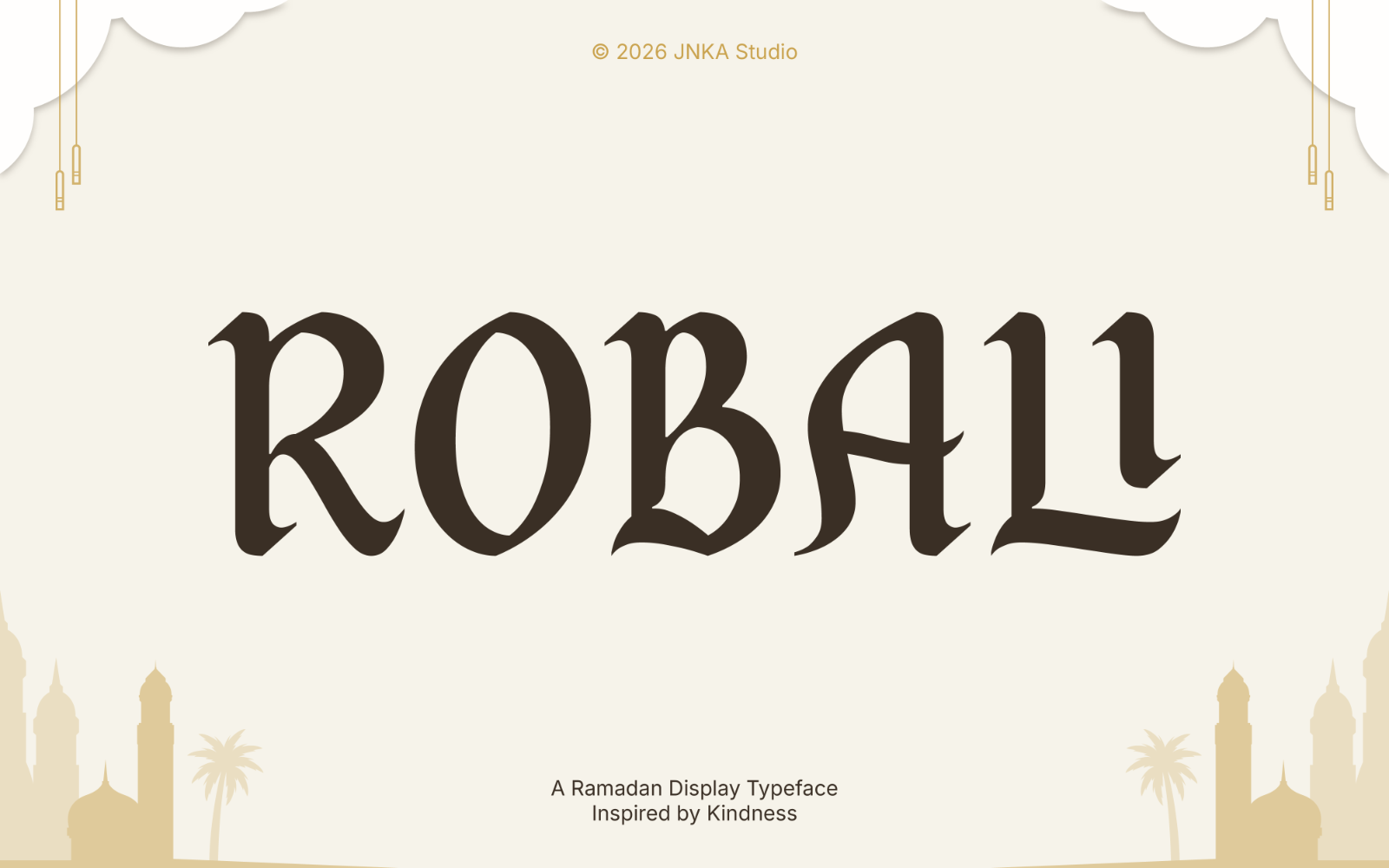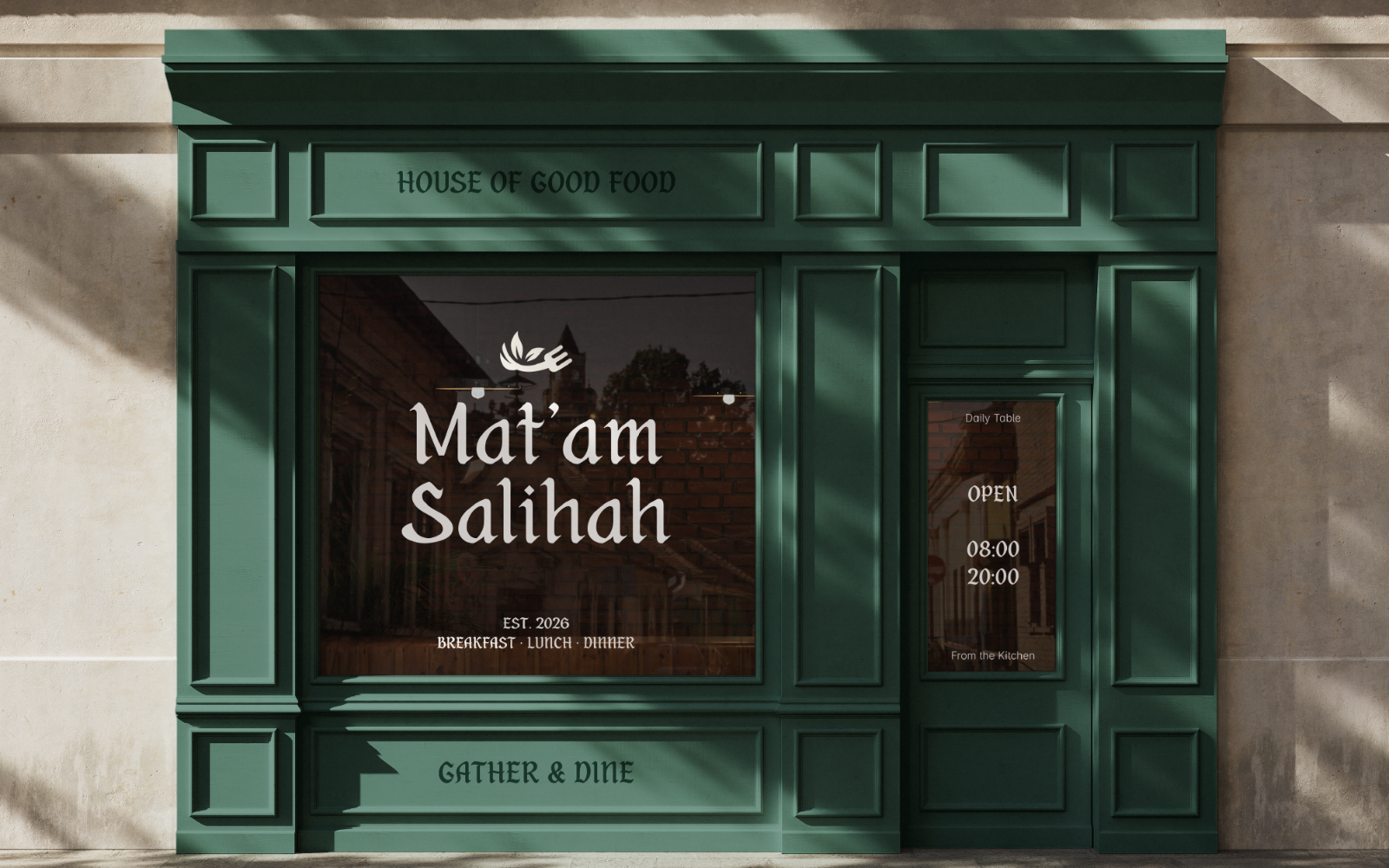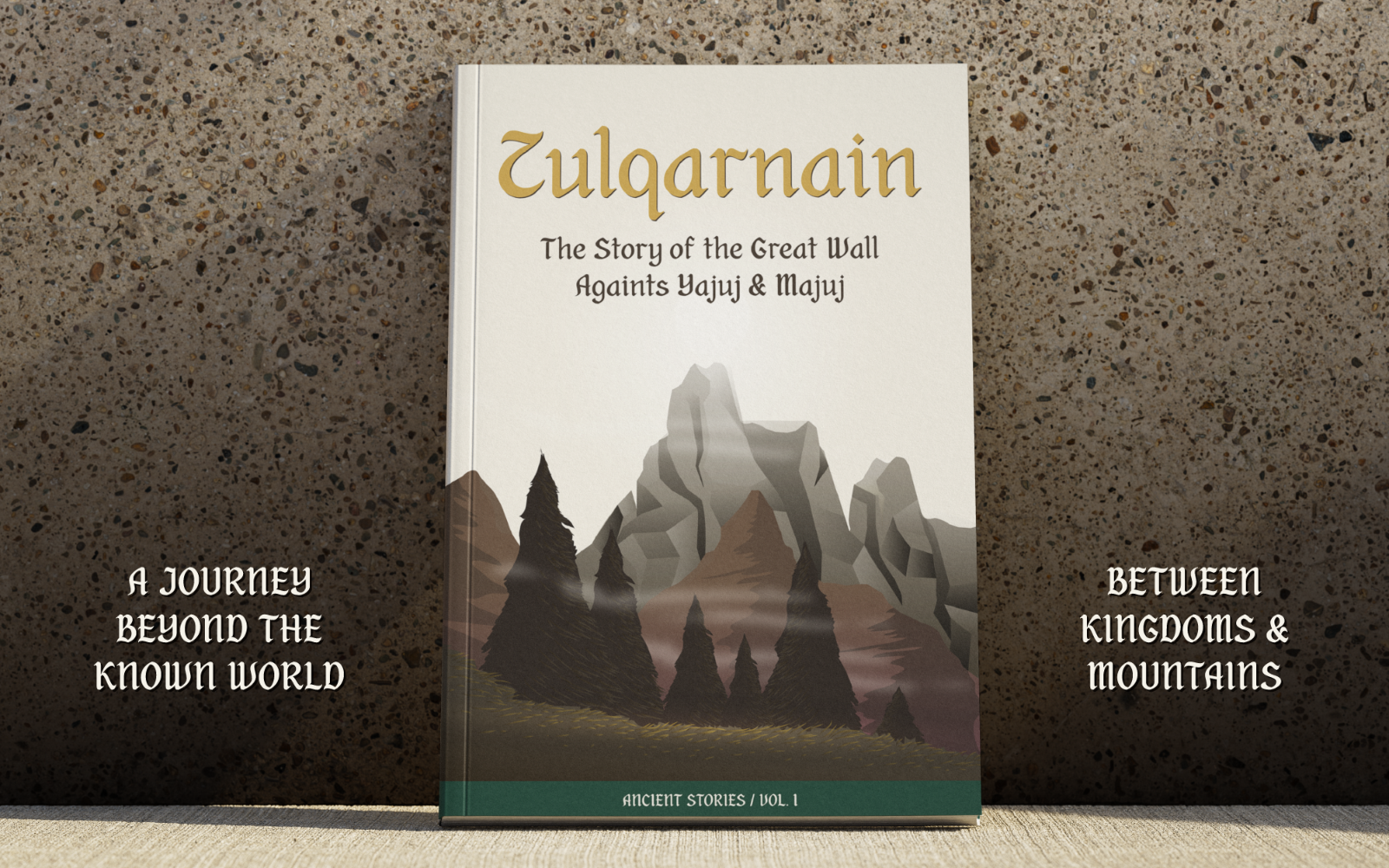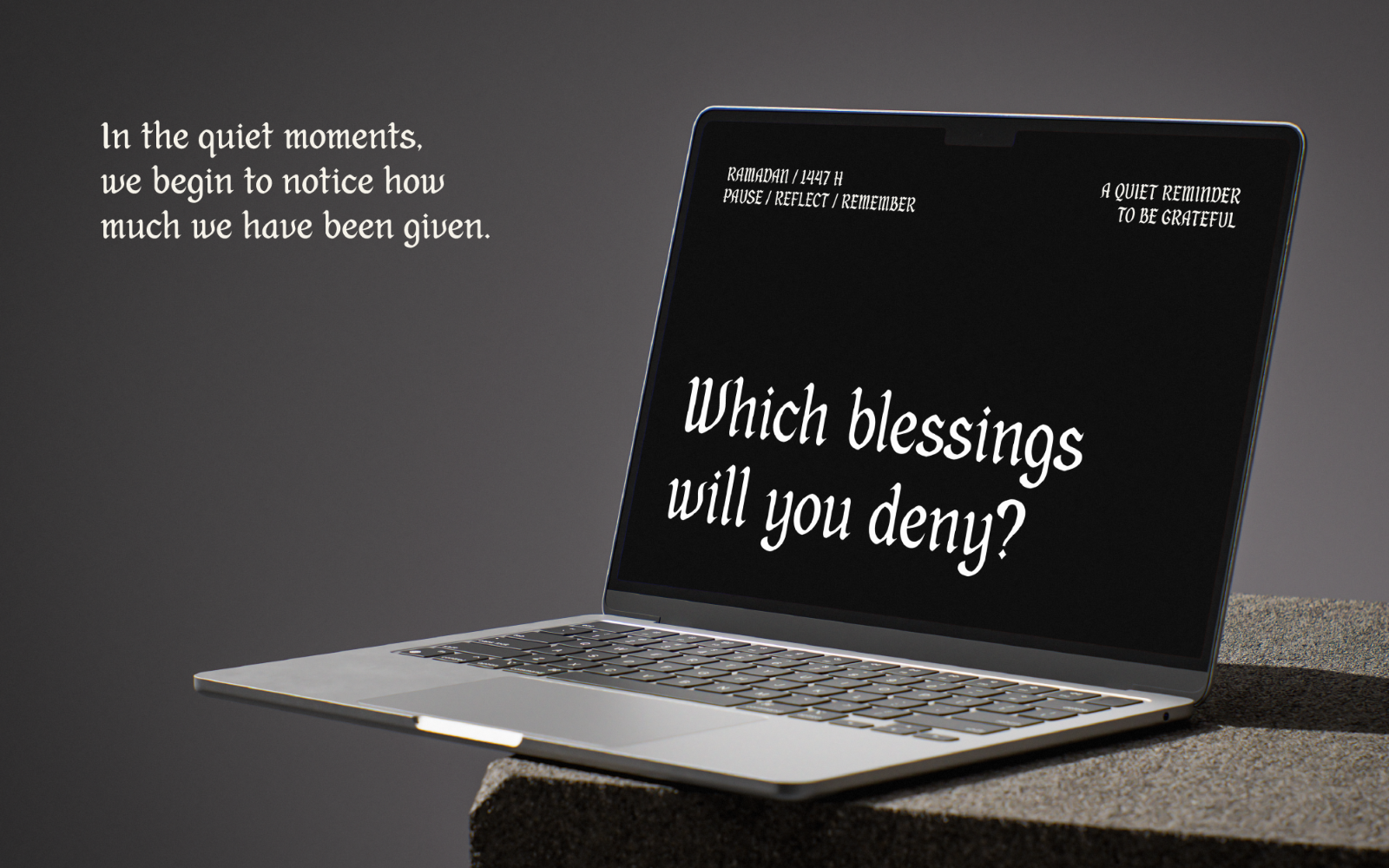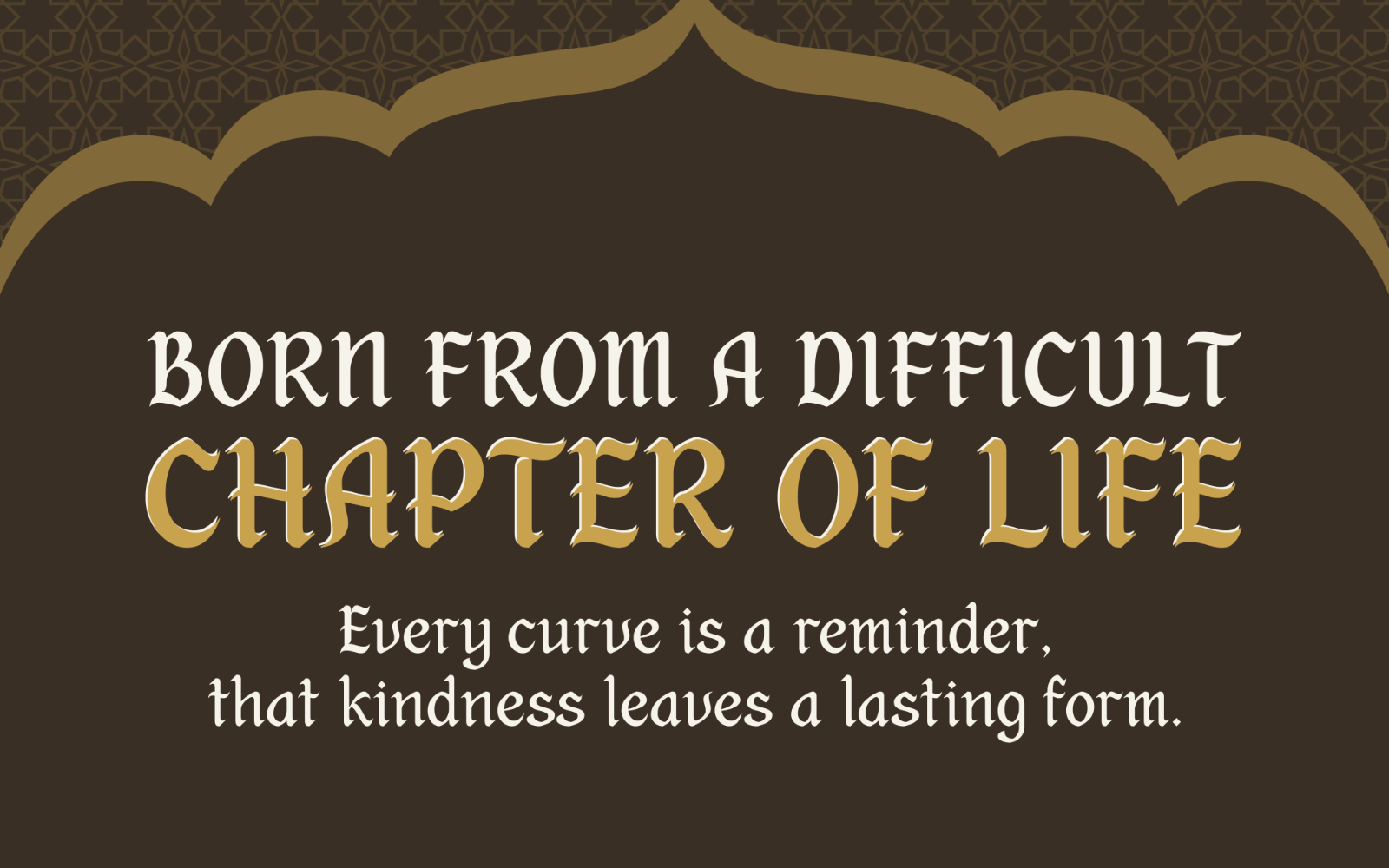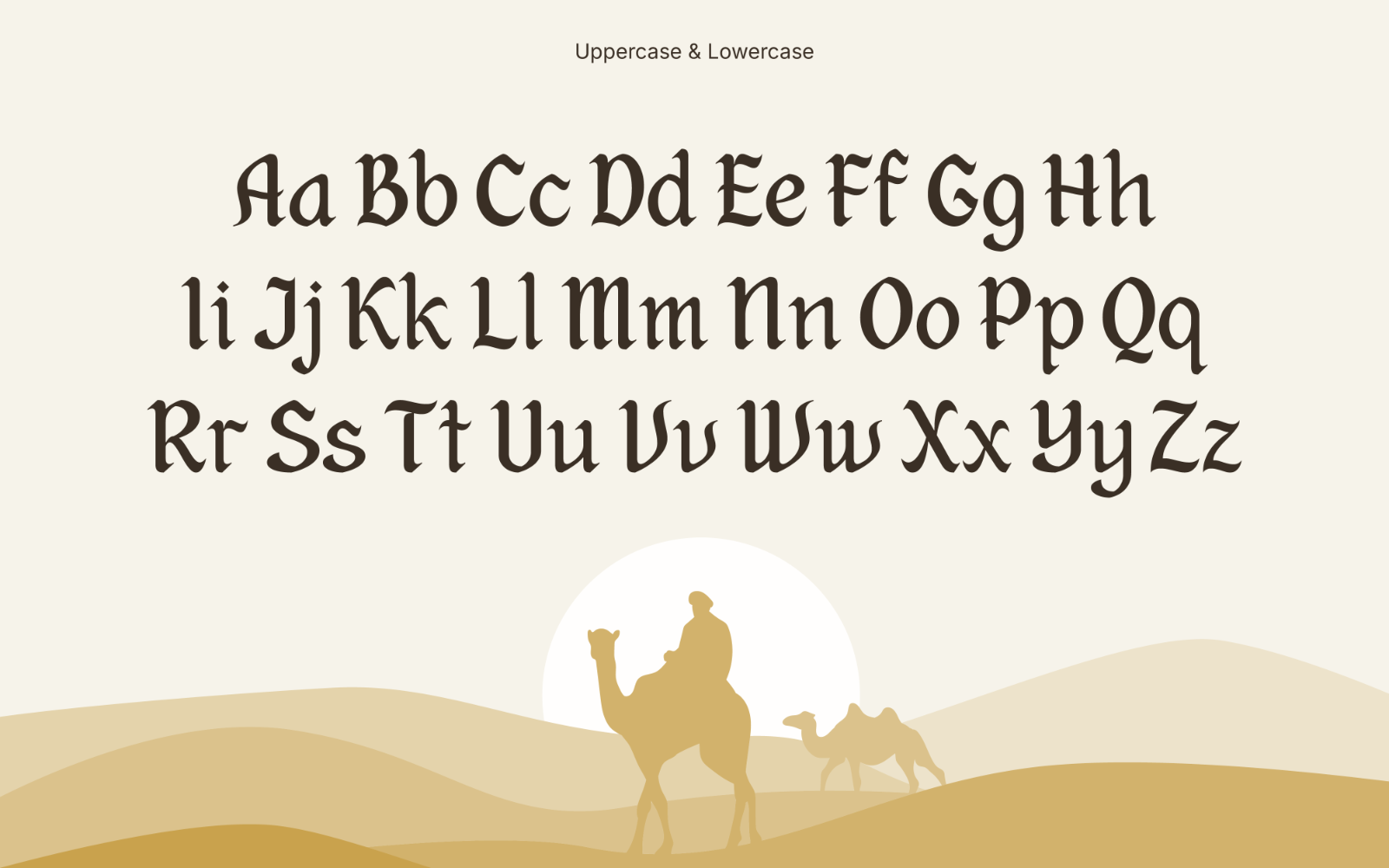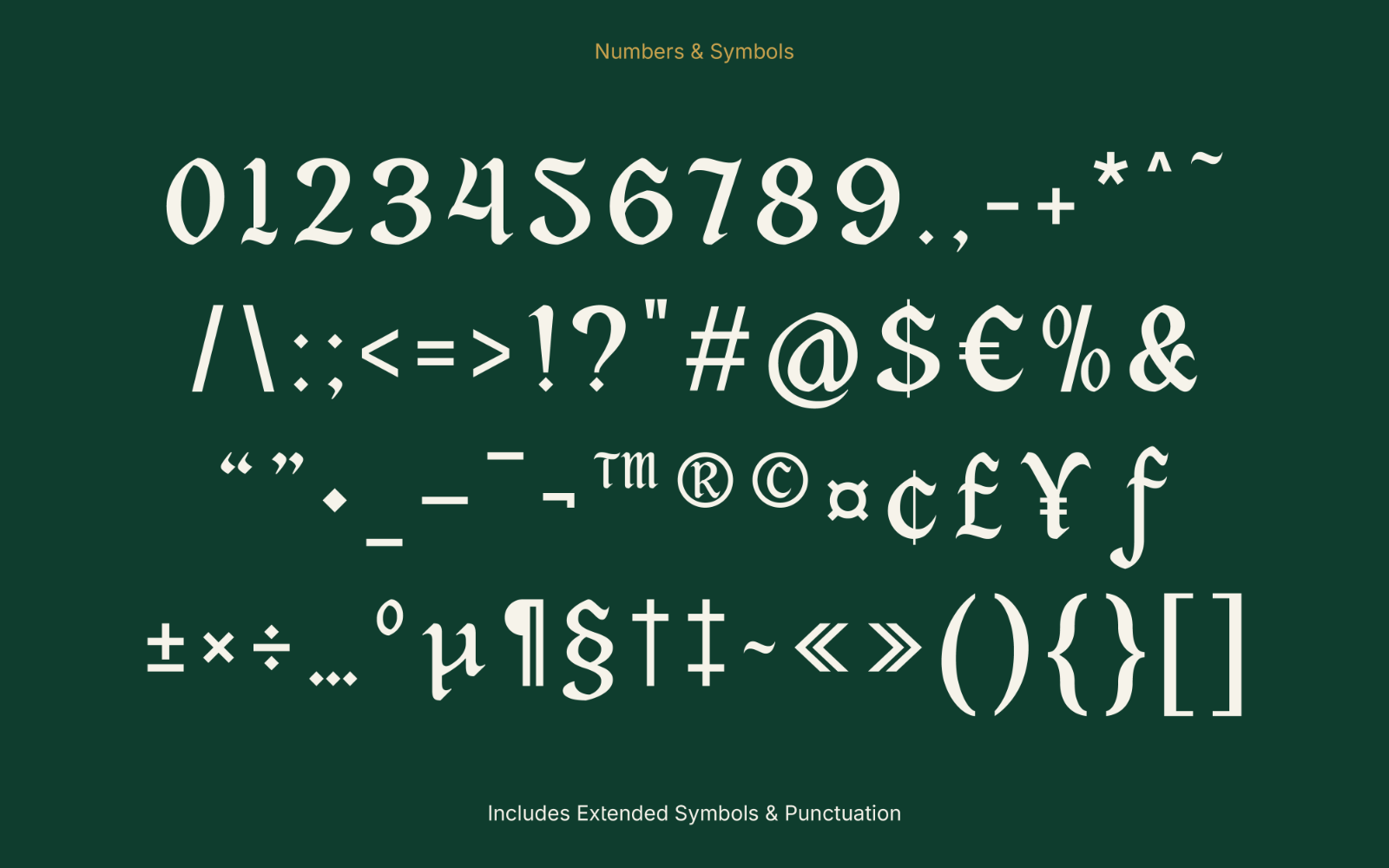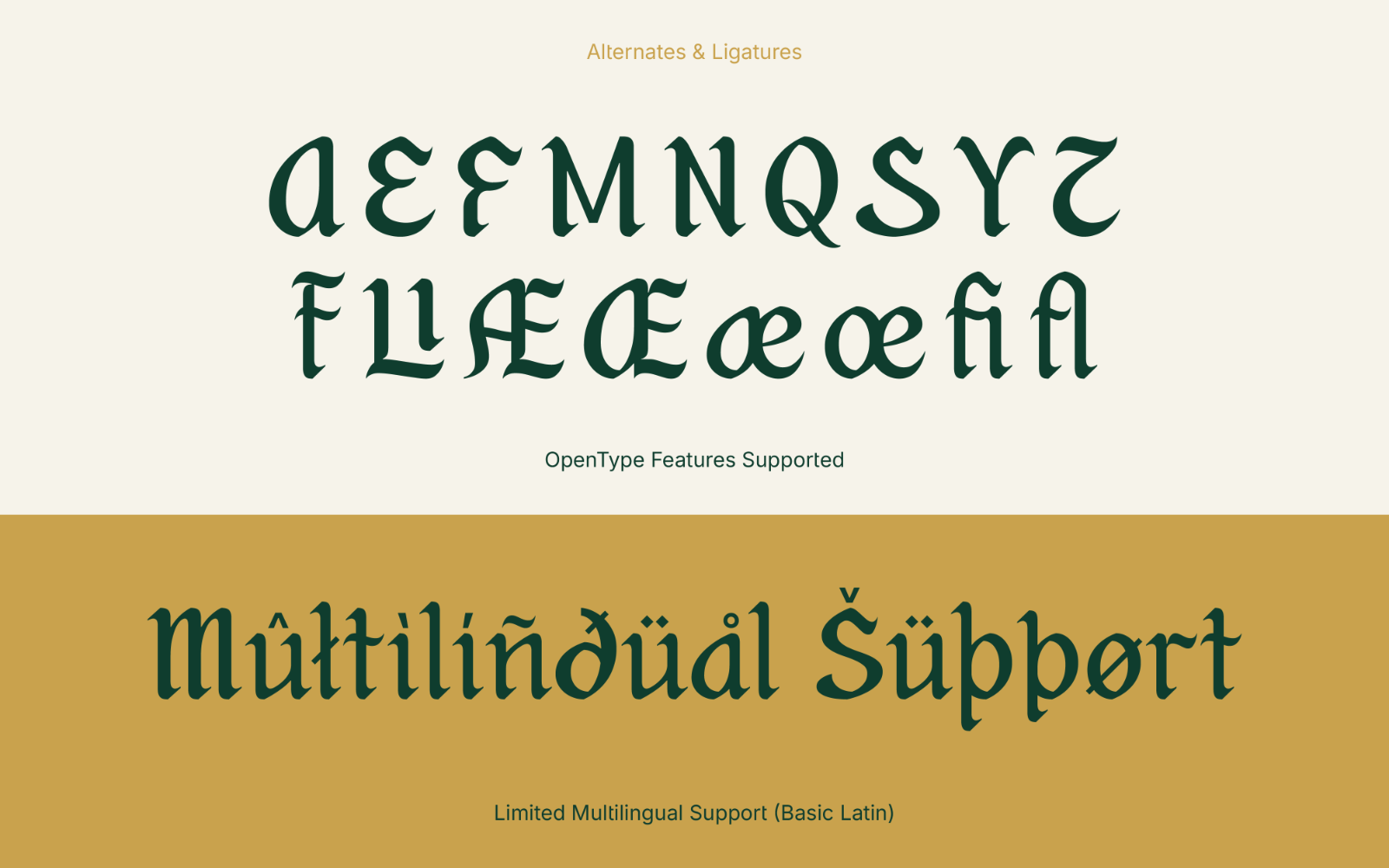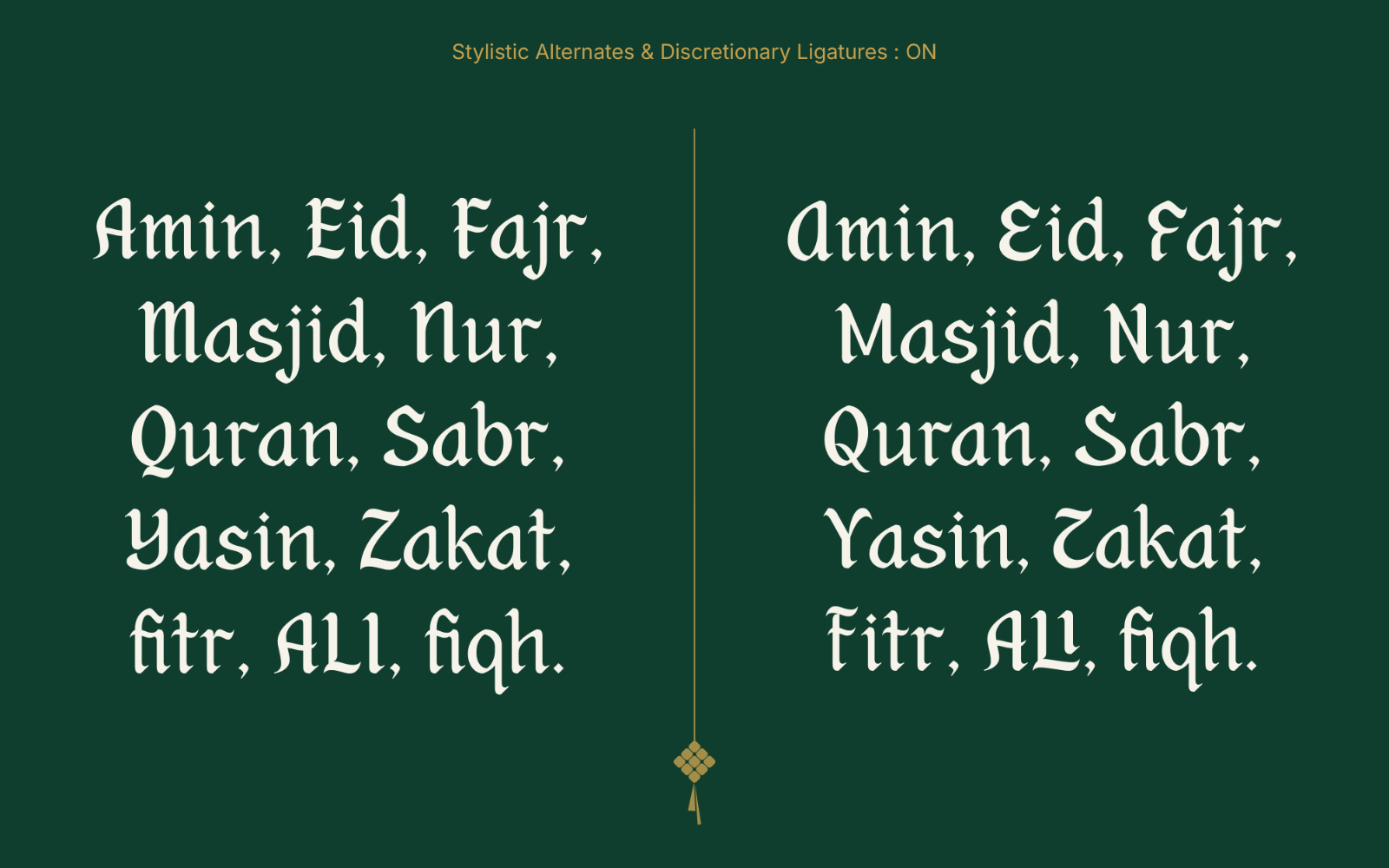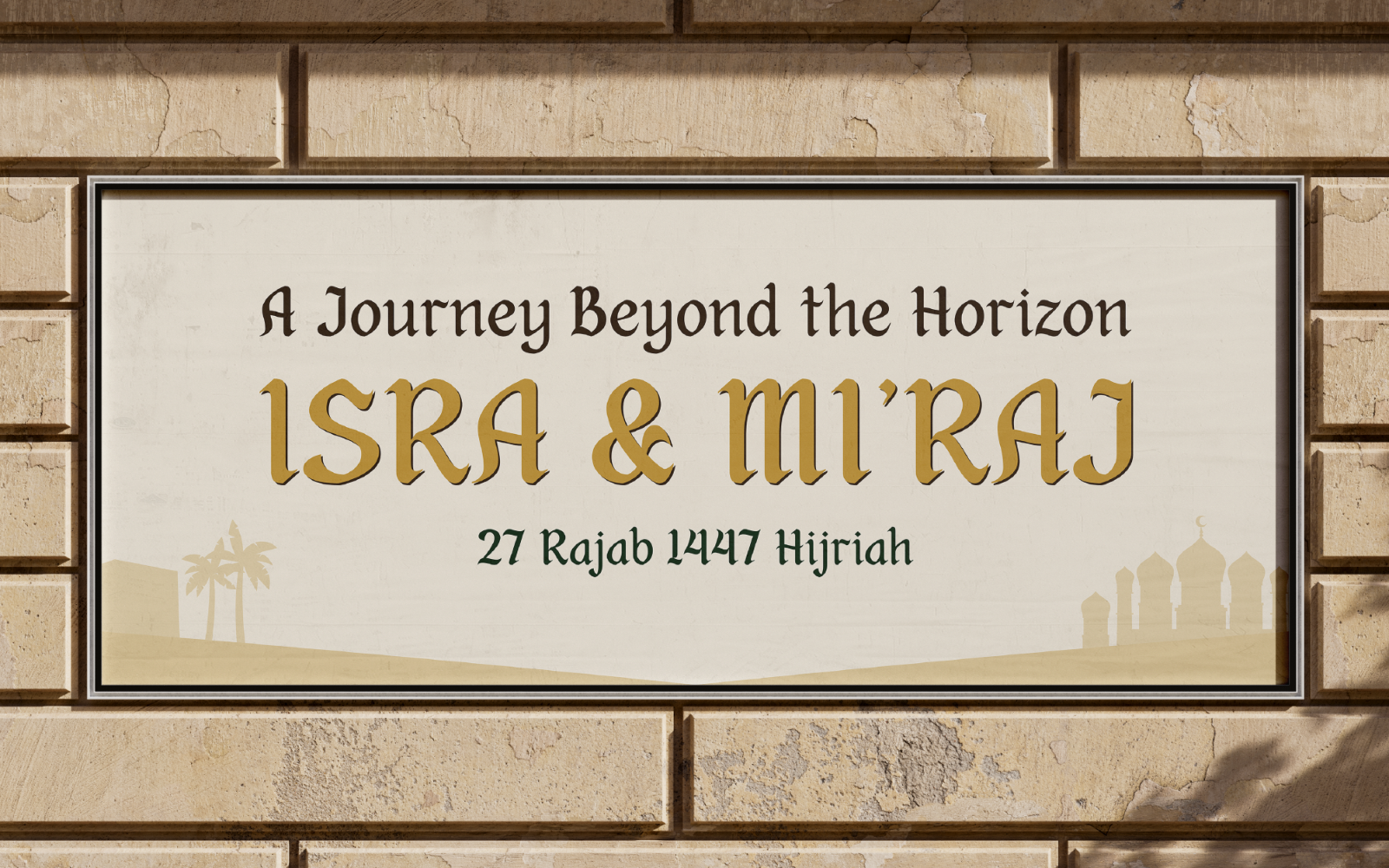
Robali
Is a decorative display typeface inspired by the spirit of Ramadan and the visual rhythm of Arabic letterforms. With carefully crafted alternates and ligatures, it blends ornamental character with clear and expressive Latin typography. Robali is designed for Ramadan themed visuals, book covers, packaging, posters, and social media design.
Font Features:
- Uppercase & Lowercase Letters
- Numbers & Standard Punctuation
- Symbols & Special Characters
- Basic Multilingual Support (Latin-based)
- Stylistic Alternates
- Standard & Decorative Ligatures
- Fully PUA Encoded Characters
- Carefully Adjusted Kerning
- Approx. 243 Glyphs
- OpenType Features